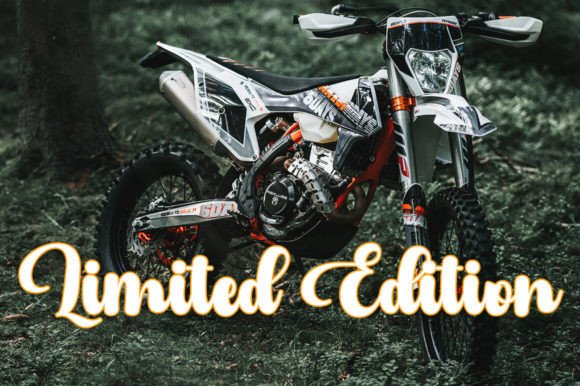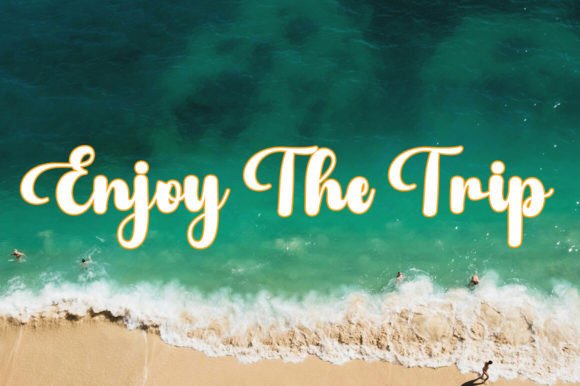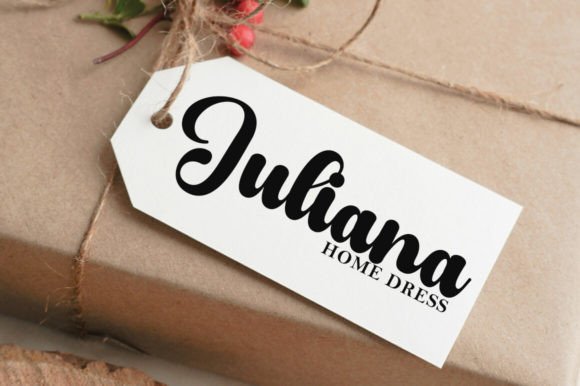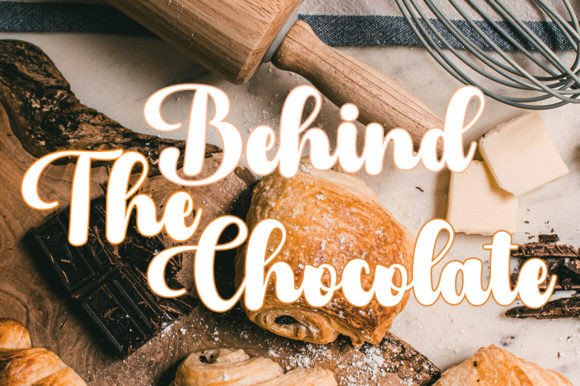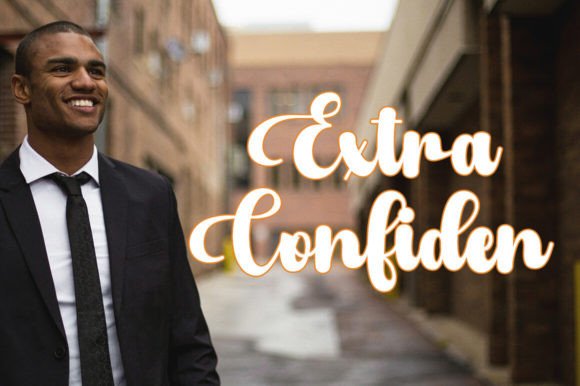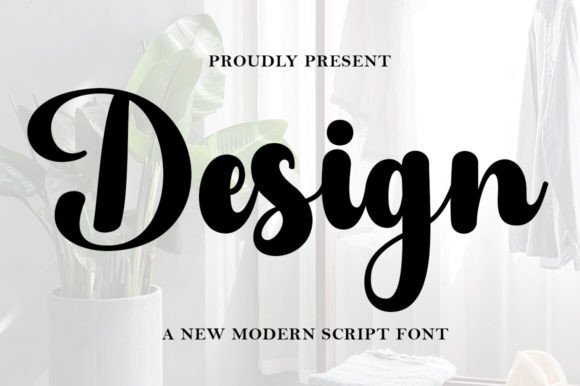
The Power of Design Fonts: Elevate Your Projects with Elegance and Charm
When it comes to creating stunning designs, the font you choose can make all the difference. A well-crafted font can add a touch of elegance and charm to your project, setting it apart from the rest. In this article, we’ll explore the world of design fonts, with a focus on a particular script font that’s making waves in the design community.
Introducing a Stunning Script Font
Design feels equally charming and elegant with this stunning script font, a stylish homage to classic calligraphy. This beautiful font is perfect for designers and crafters looking to add a touch of sophistication to their projects. Whether you’re working on branding, titles, wedding designs, invitations, signs, logos, labels, or more, this font is sure to elevate your design to the highest level.
The Art of Script Fonts
Script fonts have been a staple of design for centuries, with their elegant and flowing lines evoking a sense of luxury and refinement. From classic calligraphy to modern digital fonts, script fonts have evolved over time to become an essential part of any designer’s toolkit.
Script fonts can add a touch of personality to your design, making it more engaging and memorable. They can be used to create a sense of drama, elegance, or whimsy, depending on the style and context. In the case of the font we’re featuring, its classic calligraphy-inspired design makes it perfect for projects that require a sense of tradition and sophistication.
What Makes This Font So Special?
So, what sets this script font apart from others in its class? Here are just a few reasons why designers and crafters are falling in love with this font:
- Elegant and Charming: This font exudes elegance and charm, making it perfect for projects that require a touch of sophistication.
- Classic Calligraphy Inspiration: The font’s classic calligraphy inspiration gives it a timeless feel that’s perfect for traditional and modern designs alike.
- Versatile: This font can be used for a wide range of projects, from branding and titles to wedding designs and invitations.
- High-Quality: The font is designed to be high-quality and crisp, ensuring that it looks great in any context.
Using This Font in Your Designs
So, how can you use this stunning script font in your designs? Here are a few ideas to get you started:
- Branding: Use this font to create elegant and sophisticated brand identities that stand out from the crowd.
- Wedding Designs: This font is perfect for wedding designs, including invitations, programs, and more.
- Invitations: Use this font to create beautiful and eye-catching invitations for any occasion.
- Signs and Logos: This font can be used to create stunning signs and logos that make a lasting impression.
Tips for Working with Script Fonts
When working with script fonts, there are a few things to keep in mind to ensure that your design looks its best:
- Use it Sparingly: Script fonts can be overwhelming if used too much. Use them sparingly to create a sense of elegance and sophistication.
- Choose the Right Size: Make sure to choose a font size that’s large enough to be readable, but not so large that it overwhelms the design.
- Pair it with Other Fonts: Script fonts can be paired with other fonts to create a unique and interesting design.
In conclusion, this stunning script font is a must-have for any designer or crafter looking to add a touch of elegance and charm to their projects. With its classic calligraphy inspiration and versatile design, it’s perfect for a wide range of applications. By following the tips outlined in this article, you can create stunning designs that showcase the beauty of this font.